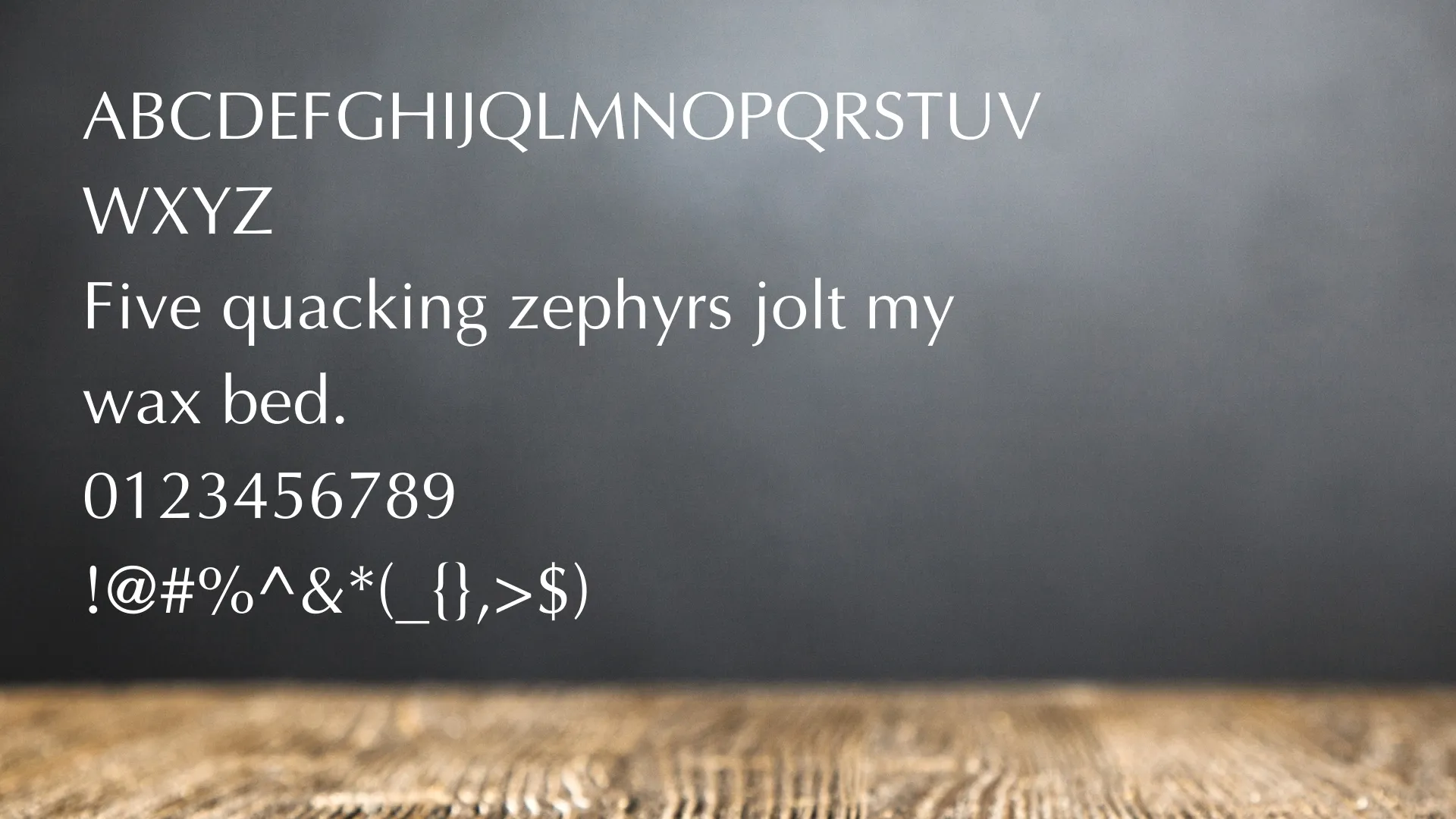
Optima Font belongs to the Sans-Serif Font family, boasting a clean and elegant visual appearance. Designers have been impressed by its resemblance to Garamond Font and Centaur Font, as well as classic Roman typographies. This versatile font can add both classic and modern vibes to your designs, with a semi-bold character that ensures readability even from a distance. Optima Font is ideal for use in both short and long texts.
Creator of Optima Font
This elegant and clean textured style was created by Herman Zapf, a German type designer who has created several types, including this one and it has been released by the D. Stempel AG foundry, in 1958.
This font style has been created with a style of its own. Each style in the family of this typeface features includes uppercase letters, lowercase letters, glyphs, punctuation, digits, symbols, and special characters are all included in this family of styles, as well as language support. These styles are mentioned below:
- Optima Pro Roman
- Optima Pro Italic
- Optima Pro Medium
- Optima Pro Medium Italic
- Optima Pro Demi Bold
- Optima Pro Demi Bold Italic
- Optima Pro Bold
- Optima Pro Bold Italic
- Optima Pro Black
- Optima Pro Black Italic
- Optima Pro Extra Black
- Optima Pro Extra Black Italic
View of Optima Font
| Name | Optima Font |
| Designer | Herman Zapf |
| Foundry | Stempel Type Foundry |
It can support up to 94 languages.
What kind of font is Optima?
This font is a member of the Sans-Serif Font family. This typeface has a clean and elegant texture visualization.
Is Optima a good font?
This font style has been utilized by many designers in various projects and designs. So, this font style is also a good font.
What is Optima font used for?
What Google font looks like Optima?
There are some of the google fonts that look more like this font. But we have researched that Arsenal Font is most resembles this font in google library.